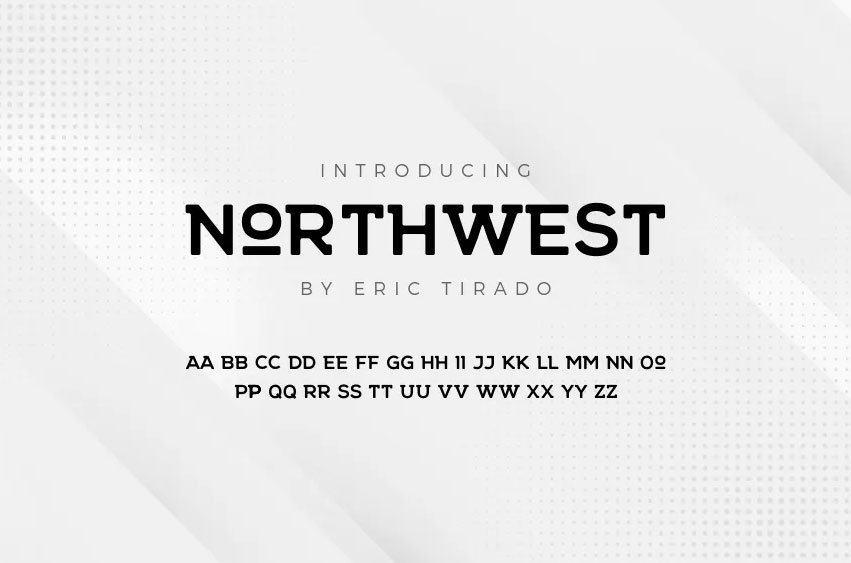
Northwest Font created by Eric Tirado, is a stylish and vintage display font that effortlessly captures the essence of the American Pacific Northwest. The rugged and picturesque landscapes of the region, along with the handcrafted signage in small towns, served as inspiration for this unique typeface.
The soft edges of the font give it a vintage printing look, making it perfect for retro designs. It is well-suited for various creative projects, including branding, packaging, business cards, magazines, and t-shirts. Use the Northwest Font to add an authentic touch of nostalgia to your designs.